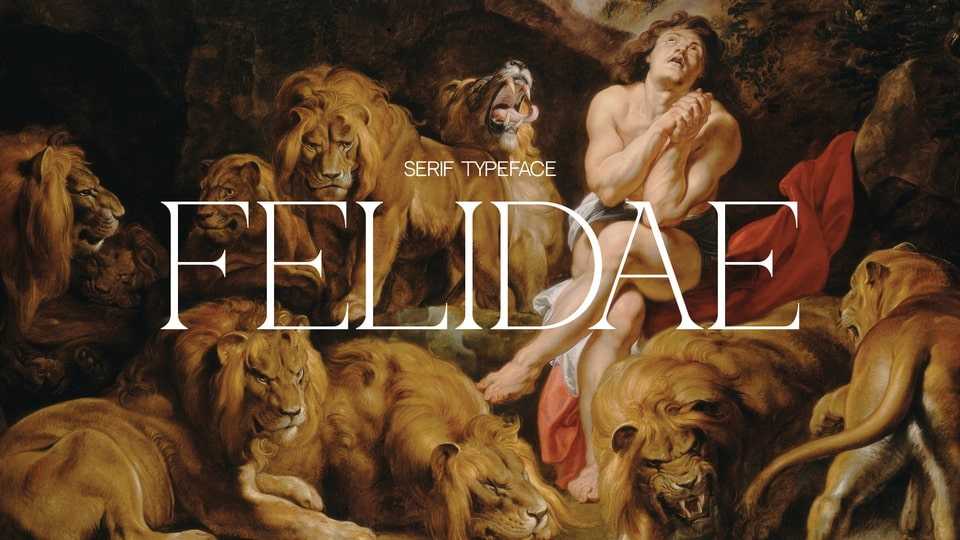
Download Felidae font, a serif typeface that combines Italian renaissance and modernity. Felidae font contains additional symbols inspired by the shapes of a lion’s mane fluttering in the wind.
Designer: Daria Kazakova